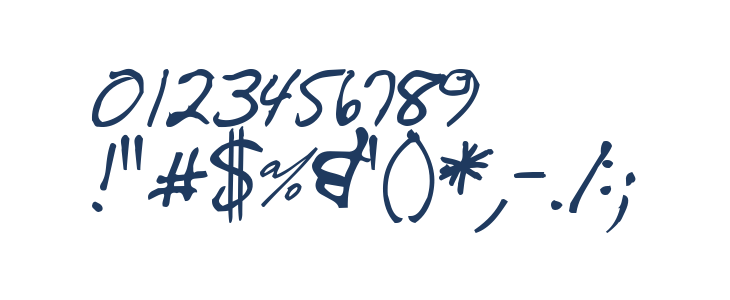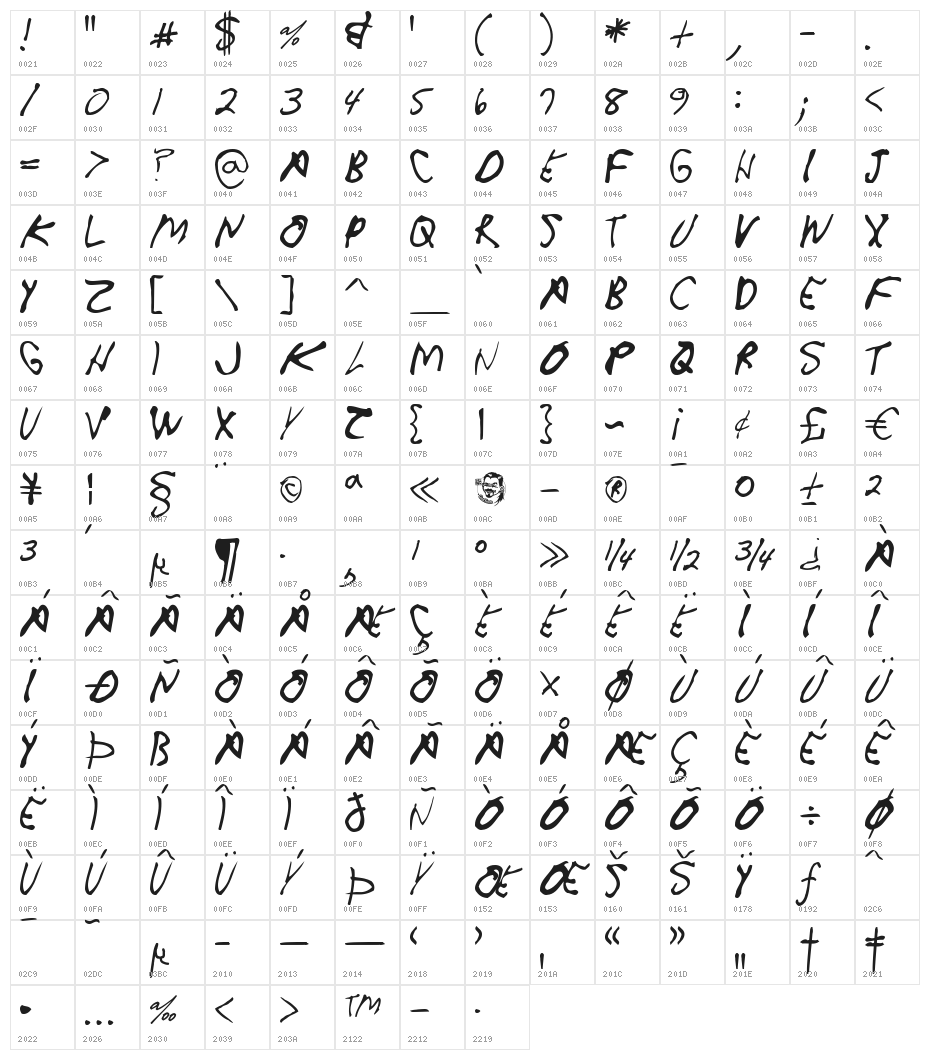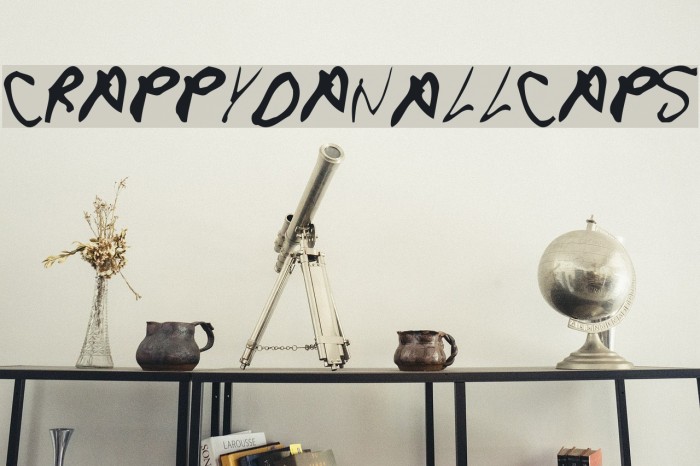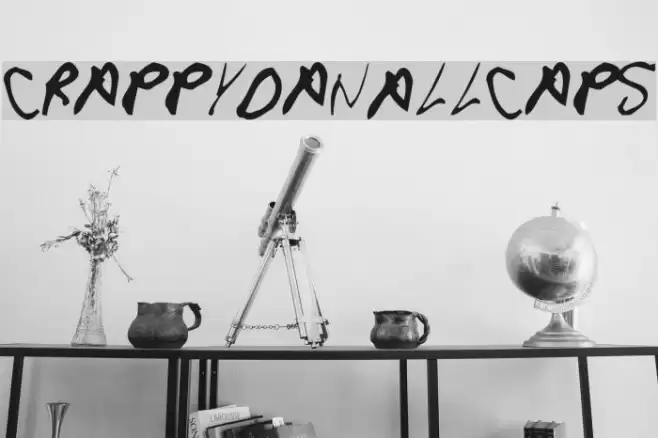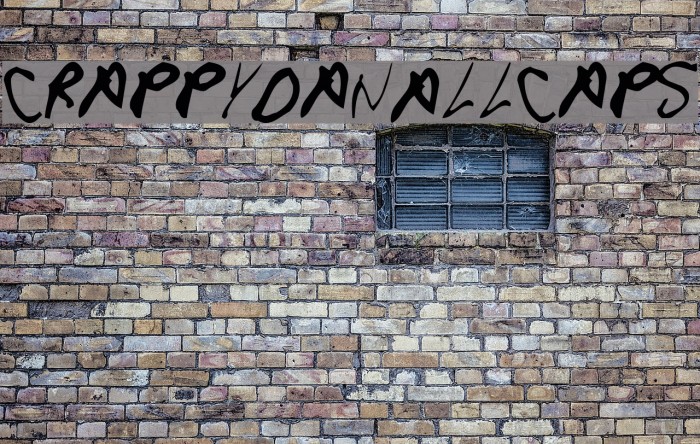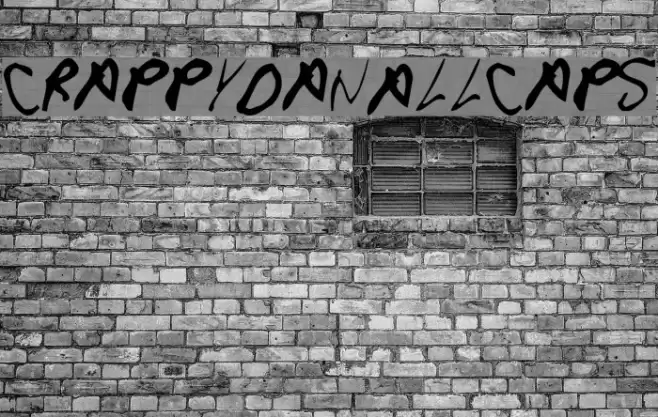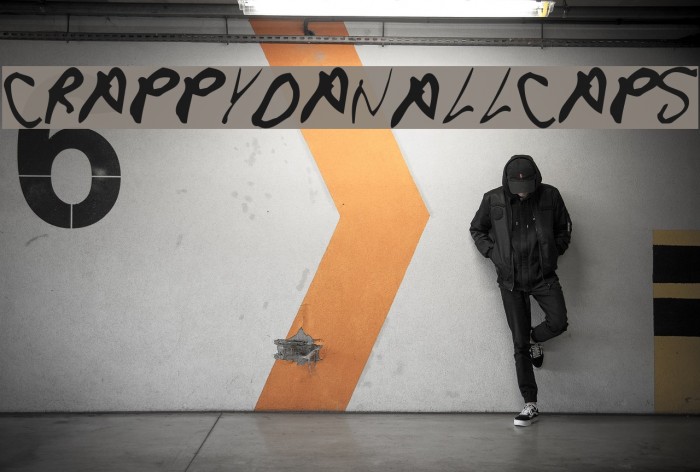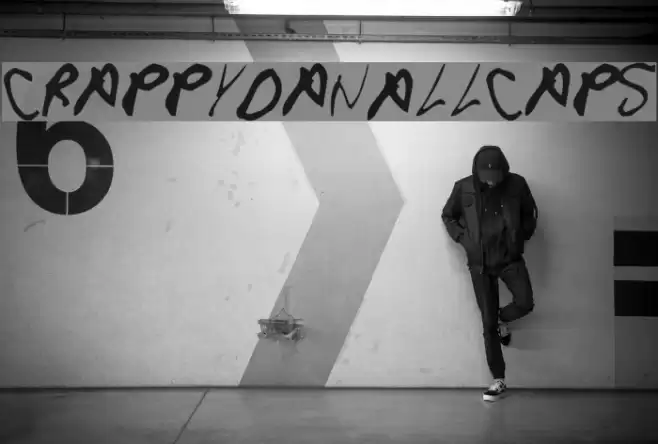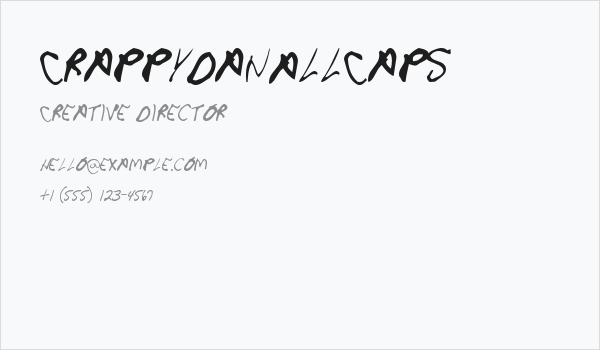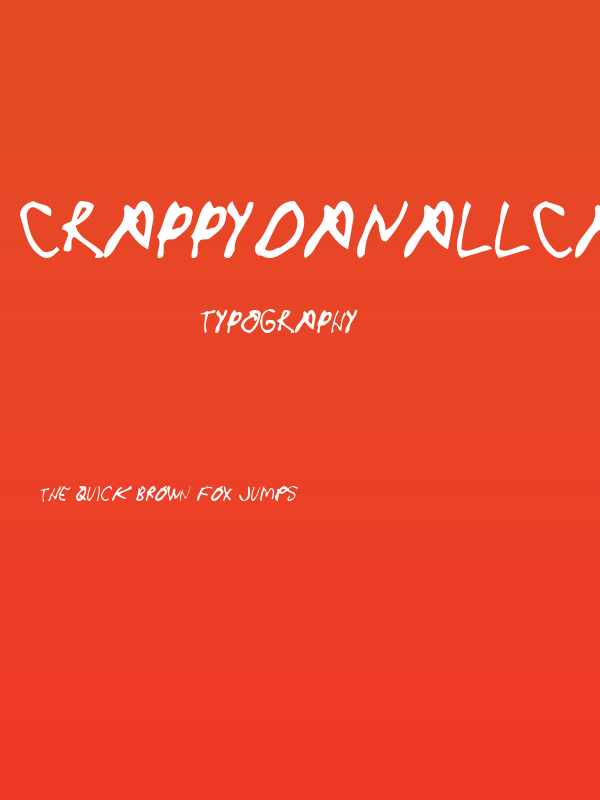
CrappyDanAllCaps Font
CrappyDanAllCaps Description
This font exhibits a bold, expressive style with a handwritten appearance. The characters are dynamic and slightly irregular, giving a sense of movement and personality. The strokes are thick and vary in width, contributing to a high contrast between the thick and thin parts of each letter. The uppercase and lowercase letters maintain a consistent style, with the uppercase being more pronounced. Numbers and special characters follow the same bold, handwritten aesthetic, making them stand out. This font is ideal for projects that require a personal touch or a casual, artistic vibe.